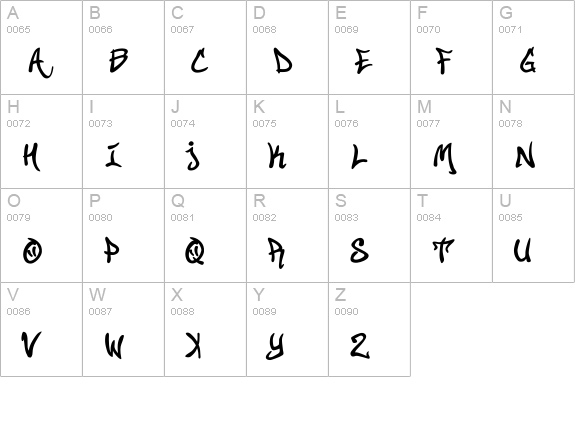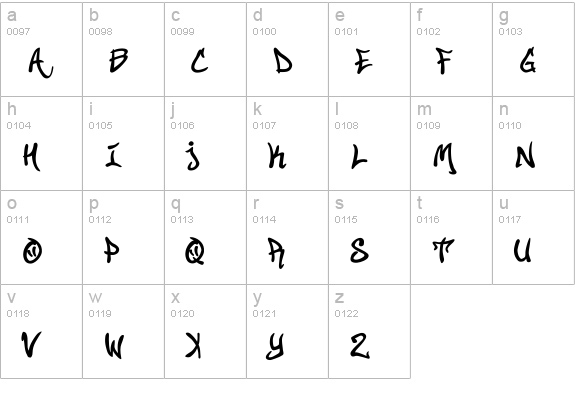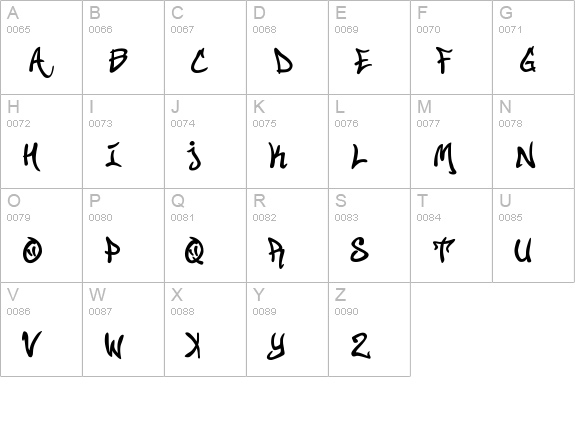
Street Soul font is a modern and stylish typeface that exudes urban charm and creativity. Its sleek lines and bold characters make it perfect for a variety of design projects, from posters to logos to social media graphics. The font strikes the perfect balance between edgy street style and sophisticated elegance, making it a versatile choice for both professional and personal use. What sets Street Soul font apart is not just its design, but also the fact that it is available for free download at FontsMarket.com. This means that you can easily access this unique font and incorporate it into your work without any cost involved. Whether you're a designer looking to add a fresh touch to your projects or an individual seeking to enhance your creative endeavors, Street Soul font is a fantastic option that won't break the bank. Embrace the urban vibes and artistic flair of Street Soul font, now freely available for download at FontsMarket.com. Elevate your designs with this dynamic typeface and let your creativity shine.